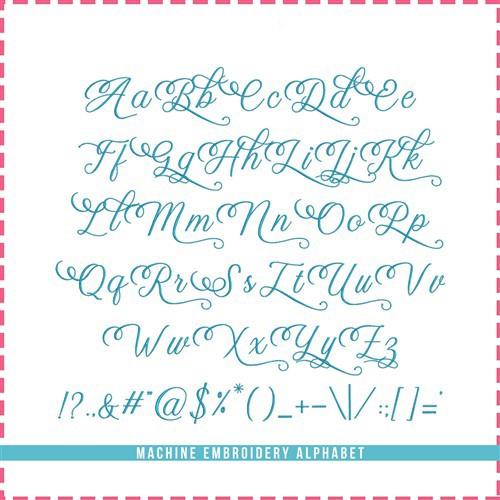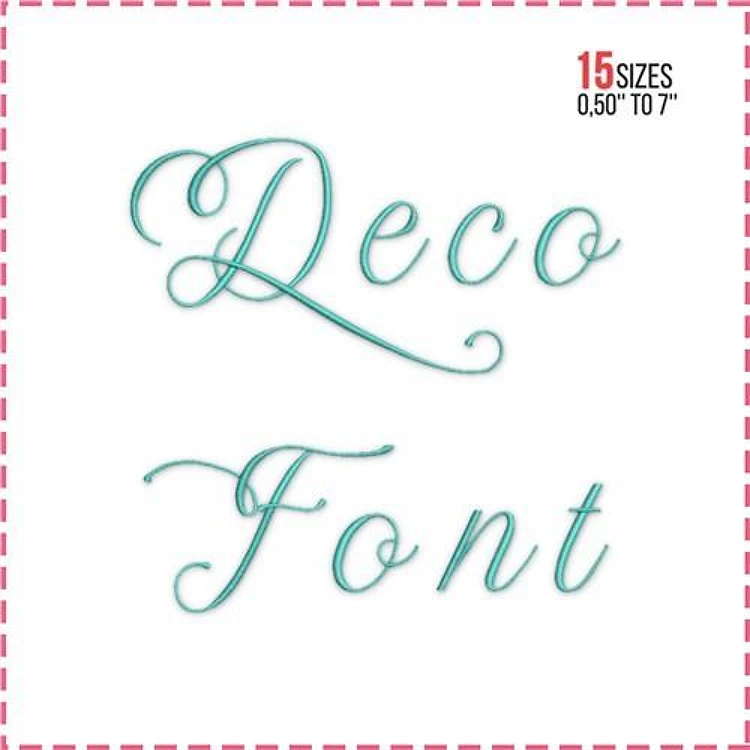
Deco Font Embroidery Font - Elegant Cursive Lettering - 15 Sizes 0.50" TO 7" - PES, DST & 8 formats by Maya Kreations and other embroidery fonts available at EmbroideryDesigns.com.
Maya Kreations is happy to present Deco Font Embroidery Font - Elegant Cursive Lettering - 15 Sizes 0.50" TO 7" - PES, DST & 8 formats machine embroidery font which has Stylish script machine embroidery font with flowing curves, ideal for decorative pillows and home decor projects. Available in PES, DST & 8 other formats. included. If you would like to view more embroidery fonts and alphabets please search our embroidery fonts page.